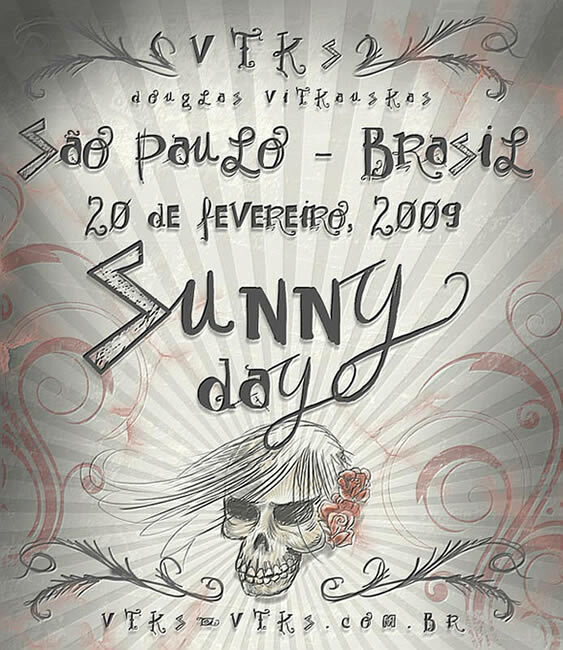
Vtks Sunny Day by Douglas Vitkauskas is a free hand-drawn display font with a storybook edge. Its letters shift between spiky solid shapes and open angular forms marked by speckles. Small curls and thorn-like strokes recur throughout.
Fans of dark fairy tales and offbeat cartoons will recognize its unruly humor. It suits game graphics, music merchandise, and Halloween posters, with lettering that can become part of the illustration. In editorial design, it can turn a magazine title into a hand-inked emblem.